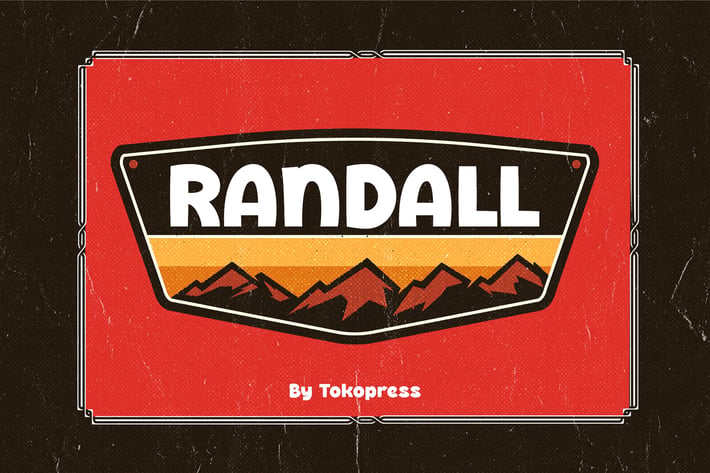
Retro Font - Randall
Randall - A Retro Adventure Typeface for Bold Posters
Randall is a bold retro-inspired display typeface featuring thick strokes, angular curves, and high contrast—crafted for projects that need to make a statement. Its expressive weight and rugged geometry carry a vintage charm while staying sharp and impactful. The letterforms are strong and structured, echoing mid-century poster design with a modern edge.
The font delivers a bold, gritty personality that feels both motivational and raw—ideal for branding that demands attention and posters with punch. Randall thrives where bold voices and visual grit are needed.
From motivational posters and apparel branding to editorial layouts and social media carousels, Randall commands presence. Its thick strokes and vintage tone make it perfect for designers aiming to evoke strength, action, and authenticity.
Use Randall when your goal is to spark emotion—whether it’s launching a creative campaign, building a brand, or rallying people through typography.
Key Features
Why Randall Works for Creatives:
- Strong personality with retro, structured boldness
- Letterforms built for motivational quotes and standout designs
- Perfect balance of nostalgia and modern use-case
- Eye-catching for posters, merchandise, and branding slogans